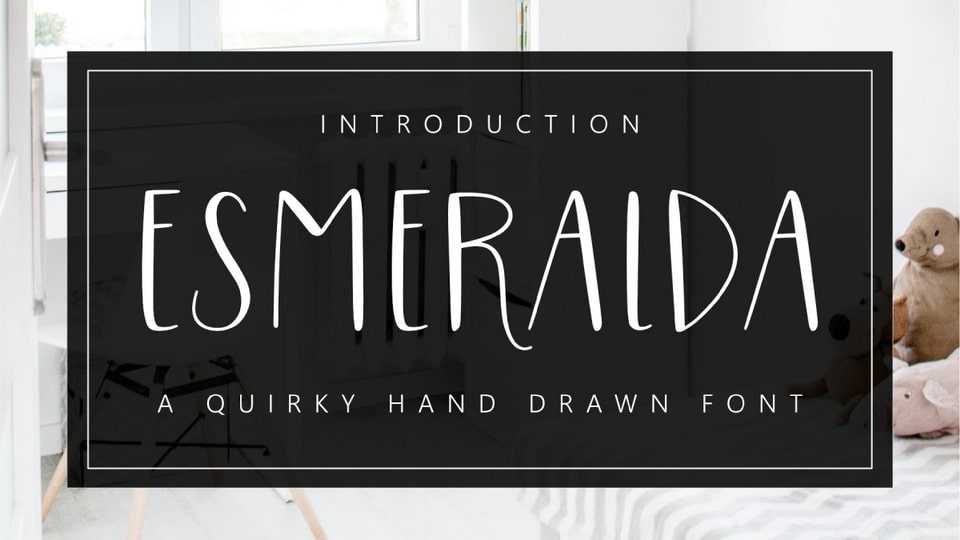
Download Esmeralda font, a very stylish, cute, and beautifully handcrafted font that makes the best choice for your designs. Esmeralda font is perfectly made for branding, packaging, headline, logos, magazines and more.